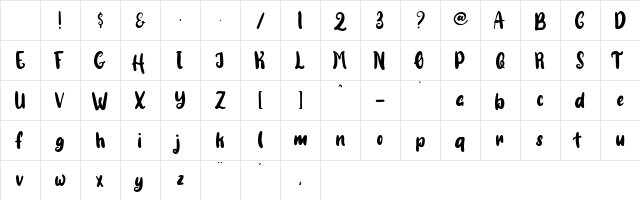
Complete Night Halloween-Personal Use Regular glyph index. Displaying only characters natively supported by Night Halloween-Personal Use Regular font.
Night Halloween-Personal Use is a composed and adaptable typeface that performs quietly and consistently across a wide range of design contexts.